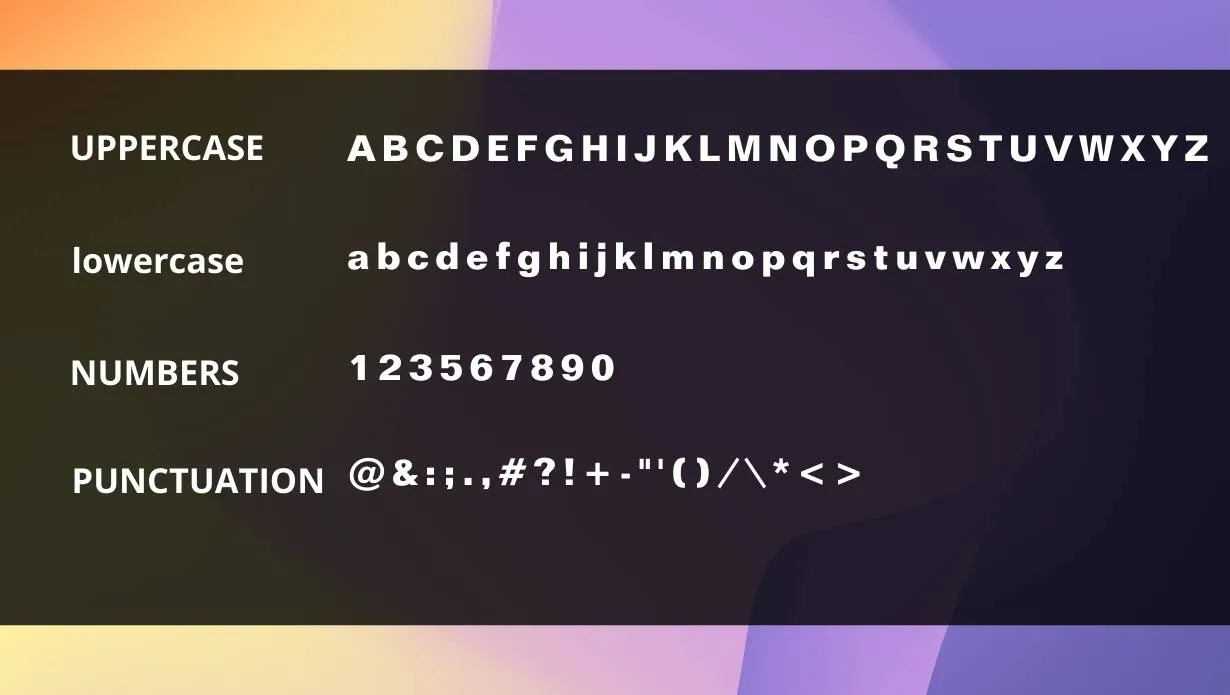
Folio Font is a typeface created in the early 1980s by Swiss typeface designer Walter Tracy. The design is based on the classic Renaissance-era types of Claude Garamond, particularly those cut by Jean Jannon in the second quarter of the 16th century.
Folio is an old-style sans-serif typeface, meaning its letters don’t have small features at the end of each stroke.
| Designer | Walter Tracy |
| Style | Sans Serif |